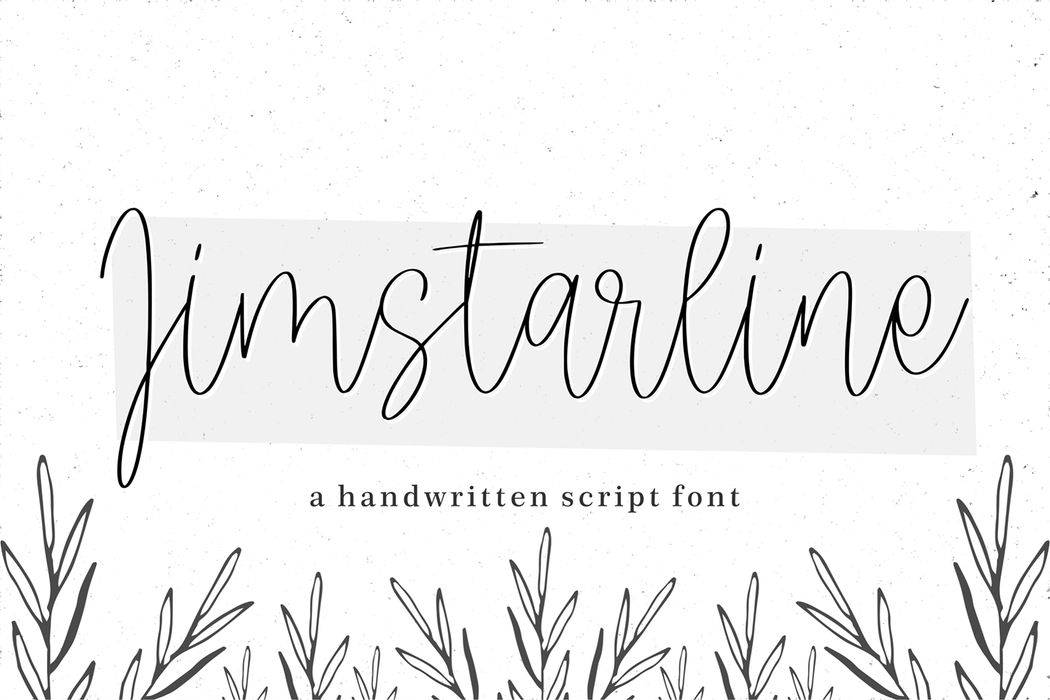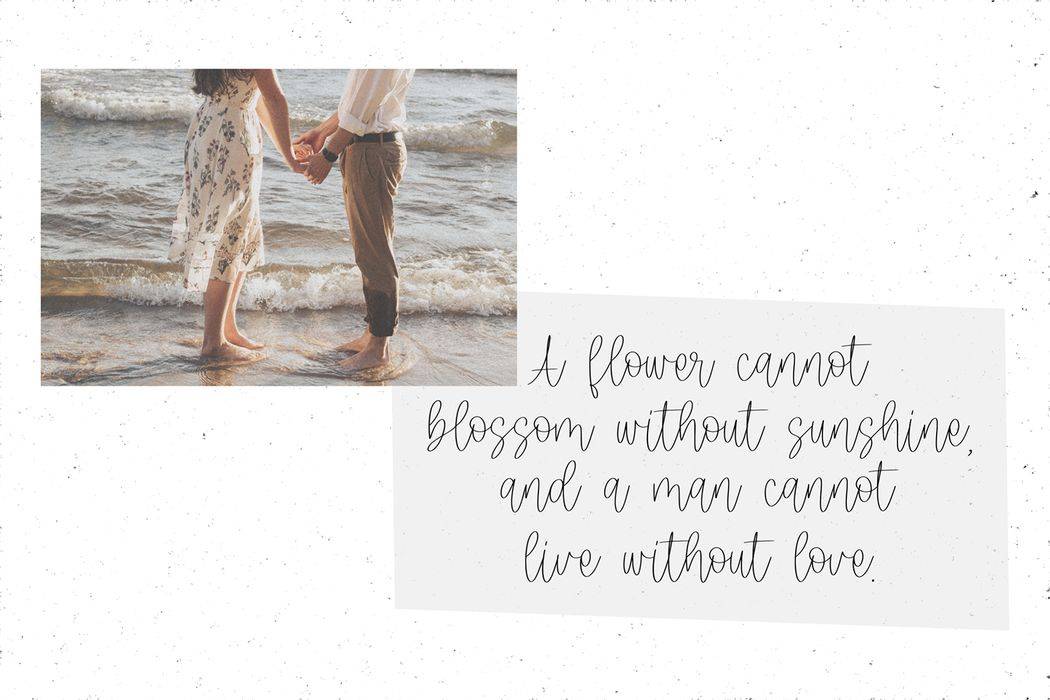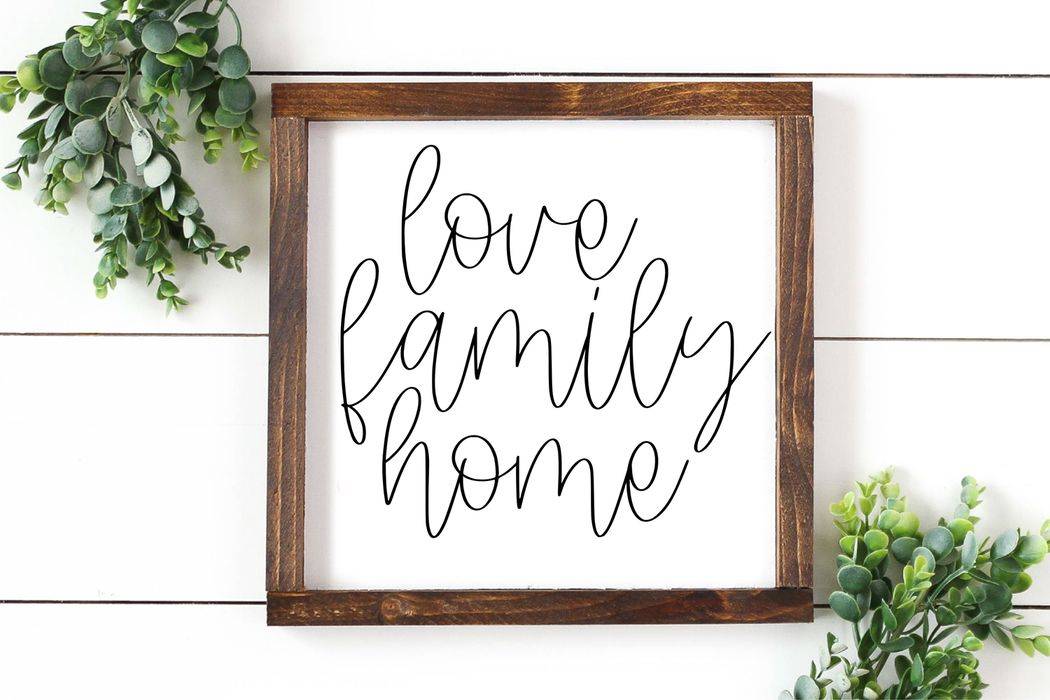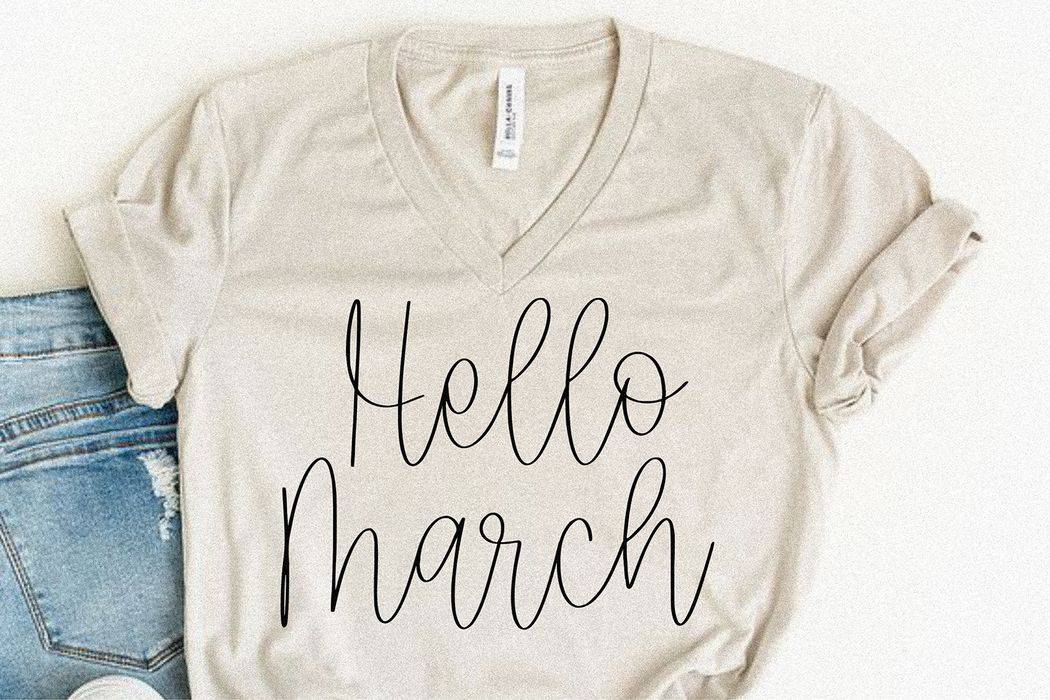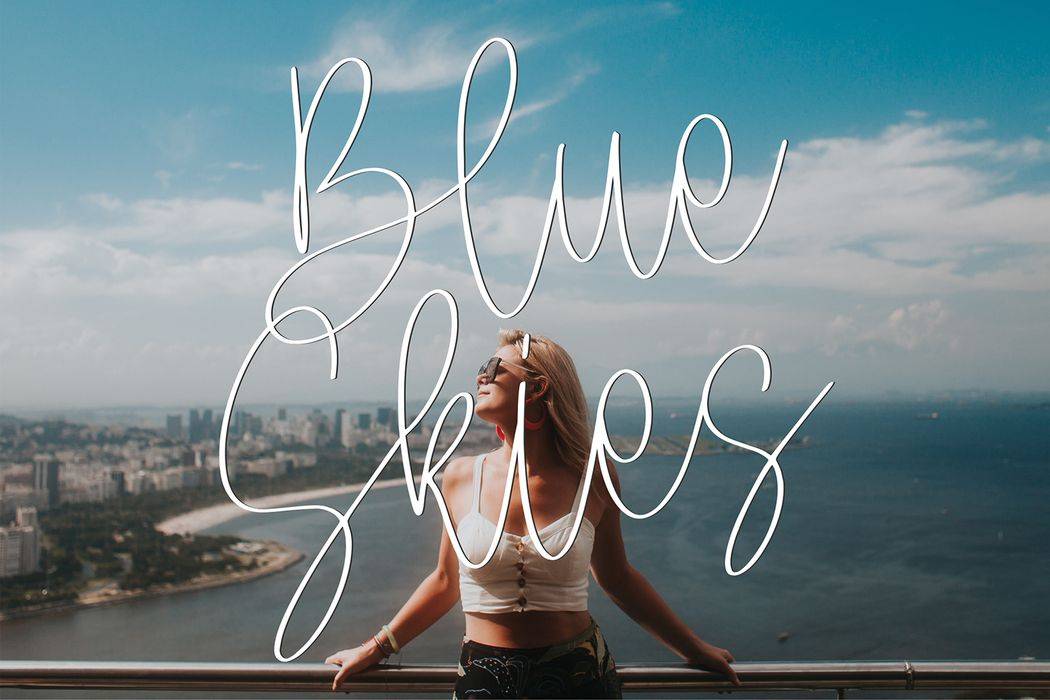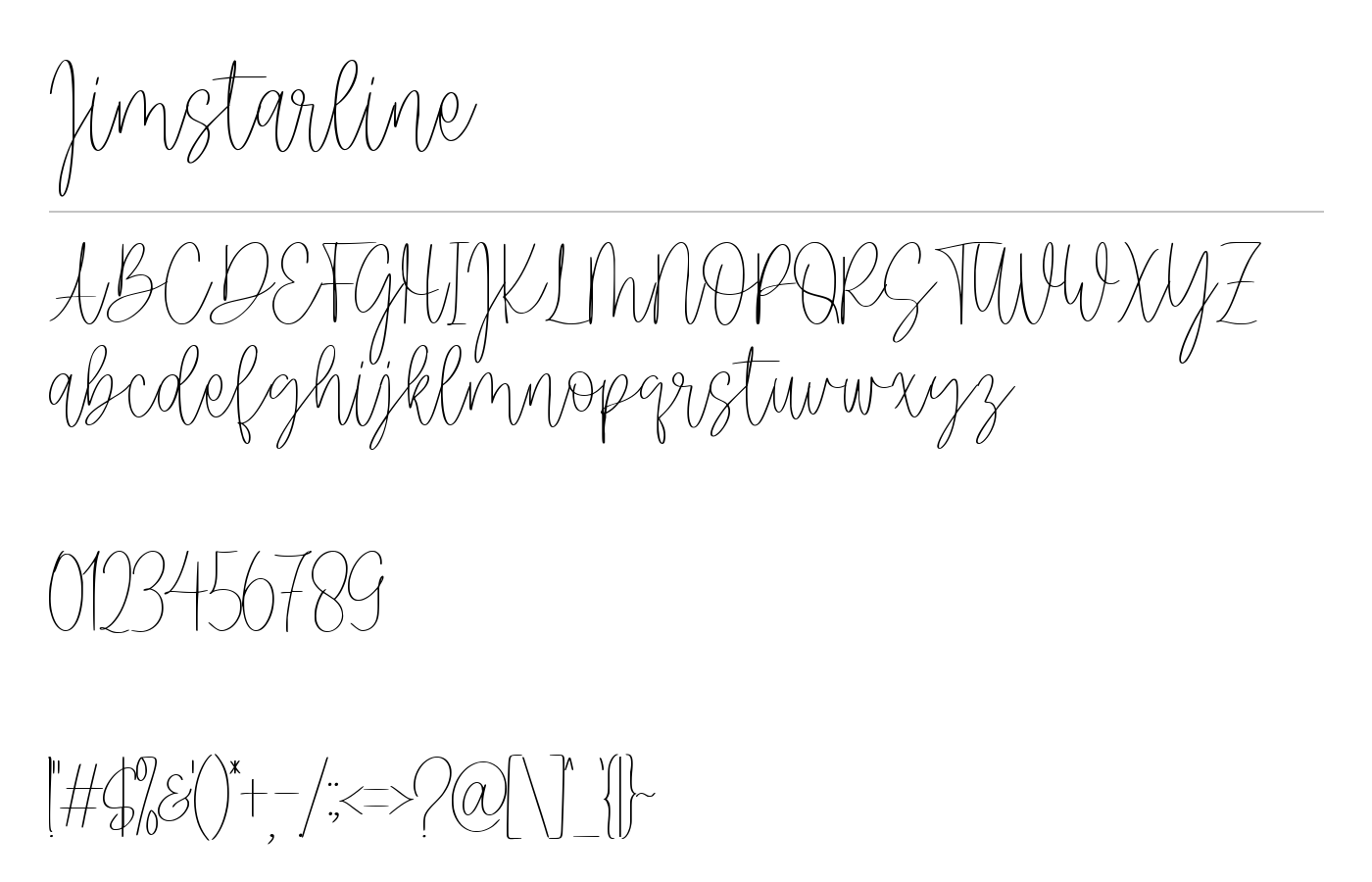
Jimstarline is a delicate, handwritten script font characterized by its thin, flowing strokes and elegant, whimsical letterforms. Its tall, narrow characters and graceful curves give it a light, airy feel, making it ideal for creative projects, invitations, and branding that seeks a personal, artistic touch. This font works best in designs that want to convey a sense of elegance and uniqueness while maintaining readability.
Jimstarline Font